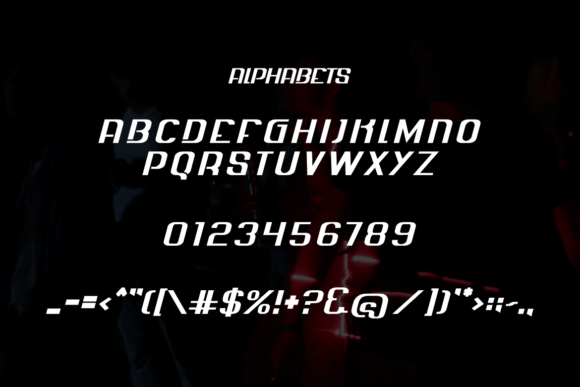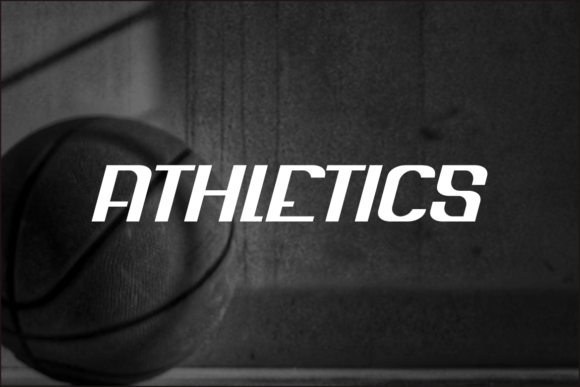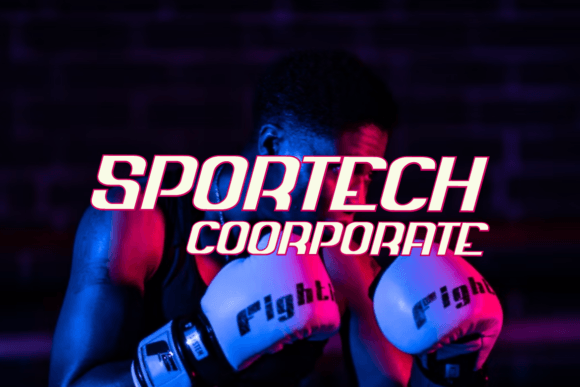
The Designer’s Delight: A Deep Dive into Gertisa Font
I’ll never forget the time I was working on a fashion brand’s logo project, and I just couldn’t find the right font. The client wanted something modern, sporty, and stylish, but everything I tried seemed to fall flat. That’s when I stumbled upon Gertisa Font, and it was love at first sight! 💕 In this article, I’ll share my experience with Gertisa, its features, and how to make the most of it in your designs.
An Honest Review of Gertisa Font
What I Love About Gertisa ✨
- ✅ Modern and sporty vibe, perfect for fashion and apparel projects
- ✅ Clean and crisp lines, making it highly legible
- ✅ Highly versatile, suitable for logos, branding, magazine layouts, social media graphics, and advertisements
- ✅ Works great for both digital and print projects
- ⚠️ Some users might find the font a bit too bold for certain applications
- ⚠️ Limited availability of extended language support
- Explore OpenType features, such as glyphs and stylistic alternates, to add more creativity to your design
Gertisa Font comes with a range of OpenType features and glyphs that can elevate your designs. Here are a few tips on how to access and use them:
- Experiment with different glyphs and stylistic alternates to add visual interest to your text
The Story Behind Gertisa Font
Gertisa Font was designed with the modern designer in mind. Its creator aimed to craft a font that would be both stylish and versatile, suitable for a wide range of applications. While the exact story behind Gertisa might be shrouded in mystery, its design is undoubtedly a testament to the power of typography in shaping brand identities.
Q: What is Gertisa Font best suited for?
A: Gertisa Font is ideal for fashion, apparel projects, signatures, album covers, logos, branding, magazine layouts, social media graphics, and advertisements.
Q: Is Gertisa Font available in multiple weights?
A: Yes, Gertisa Font comes in multiple weights, allowing you to choose the perfect variation for your design.
Q: Can I use Gertisa Font for both digital and print projects?
A: Absolutely! Gertisa Font is designed to work well in both digital and print environments, making it a versatile addition to your font library.